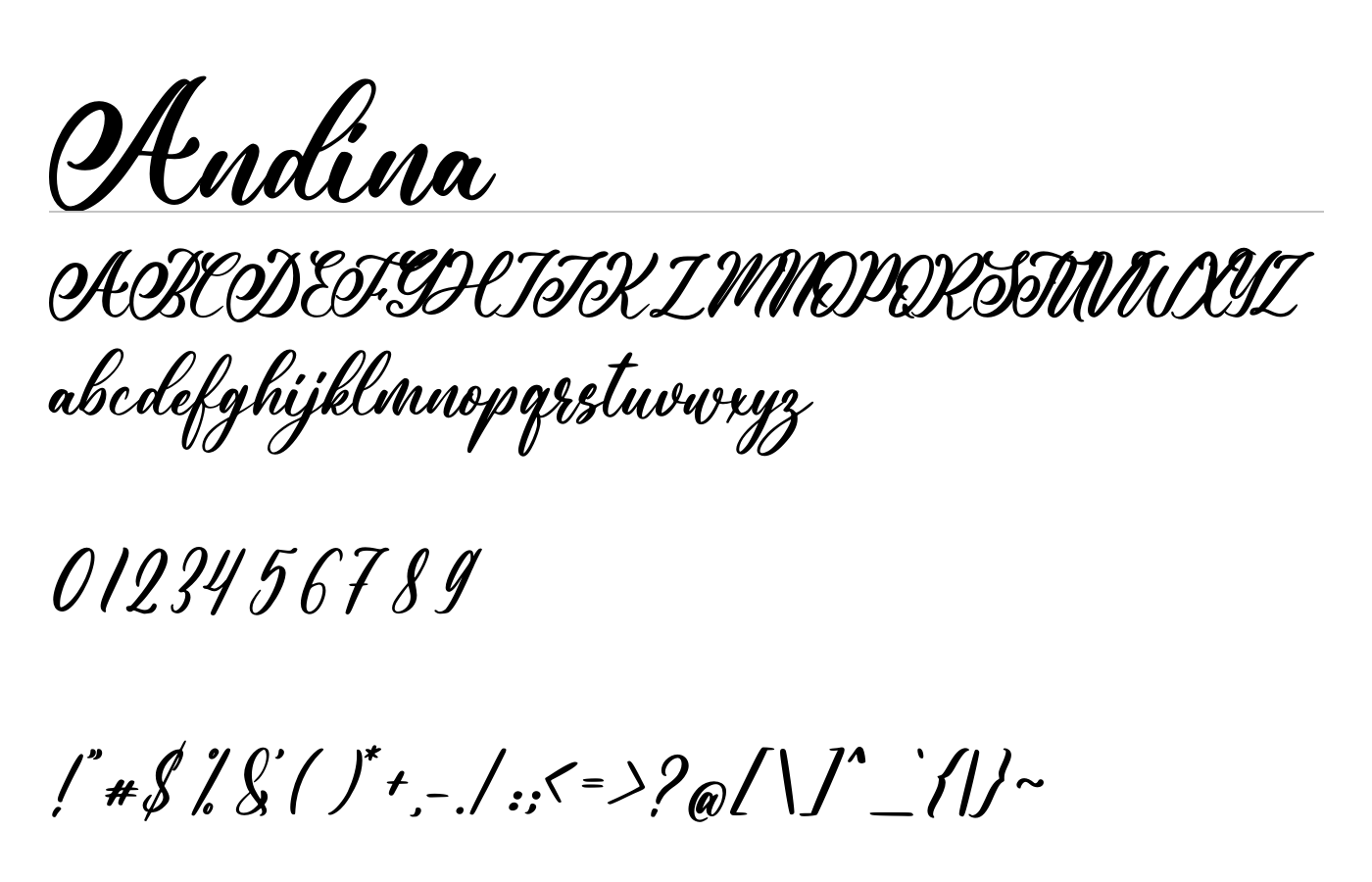
Andina is an elegant script font with smooth, flowing strokes and a refined, handwritten style that adds a touch of sophistication. It features a medium weight with moderate contrast, slender letterforms, and distinctive cursive details making it ideal for luxury branding, invitations, and stylish headlines. Its graceful yet readable design brings a classic and personal feel, perfect for projects needing a warm and refined personality.
Andina Font
About Andina Font
| Font family | Andina Font |
| Designer | Novia Himatunnisa |